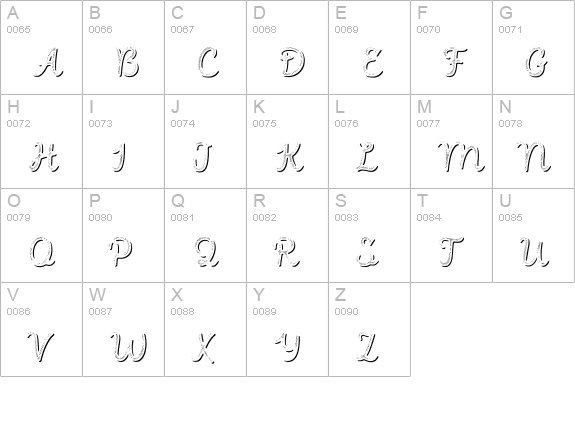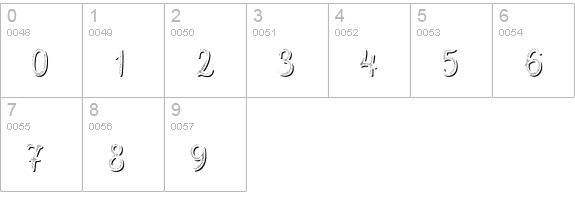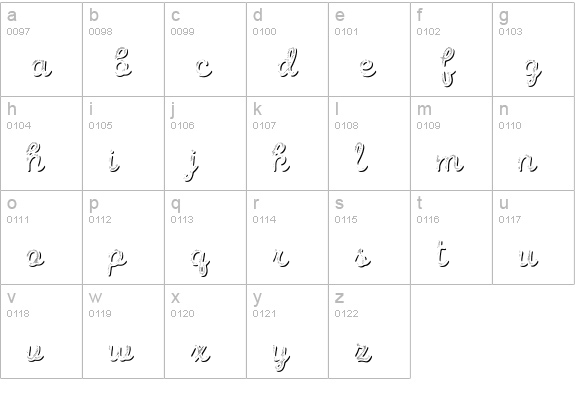
Intro Script R L Shade Font Details
The Intro Script R L Shade font is a stunning and elegant typeface that exudes sophistication and charm. Its intricate design and unique shading give it a stylish and contemporary look that is perfect for a variety of design projects. This font is versatile and can be used for branding, invitations, posters, and more. The best part? Intro Script R L Shade font is available for free download at FontsMarket.com. You can easily add this beautiful font to your collection and elevate your designs with its exquisite style. Don't miss out on this amazing opportunity to enhance your projects with this exceptional typeface. Download Intro Script R L Shade font today and see your designs come to life!